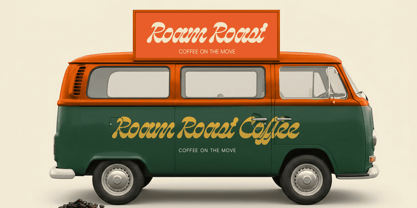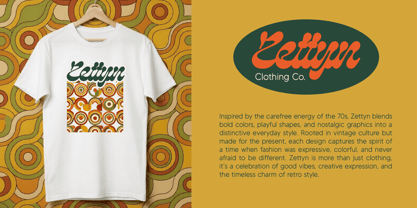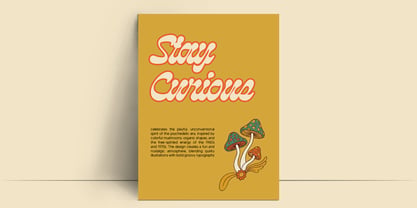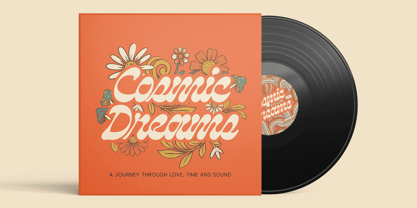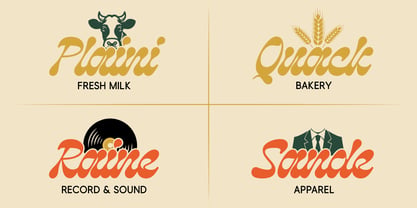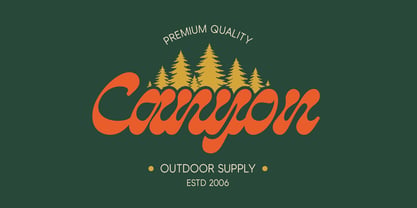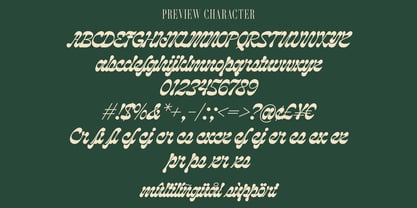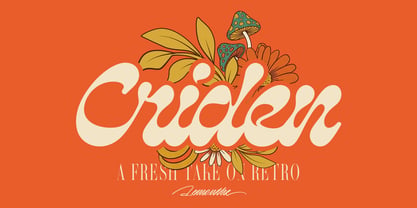
Criden
The Criden Font Family was designed by Dwi Ahidian and published by Lemonthe. Criden contains 1 styles. More about this family
Criden is a bold and expressive retro display font inspired by the playful spirit of vintage lettering and the vibrant aesthetics of the 1960s and 1970s. With its flowing curves, chunky shapes, and distinctive organic forms, Criden brings a warm, nostalgic character while maintaining a fresh and contemporary feel. Its dynamic letterforms make it perfect for logos, apparel designs, posters, album artwork, packaging, branding, stickers, and other creative projects that need a strong retro personality. Criden is designed to stand out and add an authentic vintage touch to modern visual compositions.